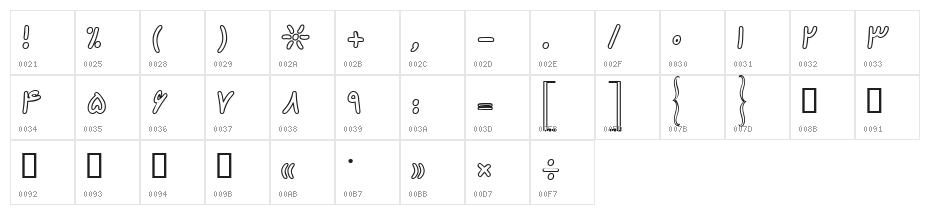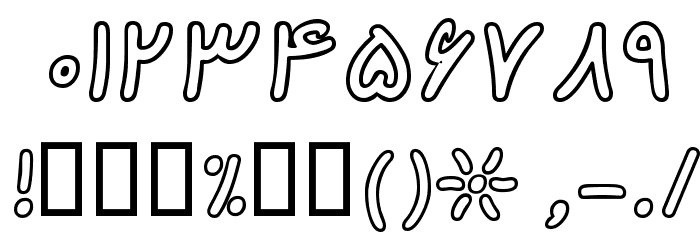
Destkhat I Outline Font
Destkhat I Outline Description
This font features a unique and artistic style with an outline design that gives it a distinct and eye-catching appearance. The characters are crafted with a smooth, flowing script that adds a touch of elegance and creativity. The numbers and special characters maintain the same artistic flair, making them suitable for decorative purposes. The font's outline nature makes it stand out, providing a modern yet artistic feel that can be used to enhance visual appeal in various design projects.
| Overall Style | Modern, Artistic |
| Proposed Projects | Ideal for creative projects such as posters, invitations, and branding materials where a unique and artistic touch is desired. |